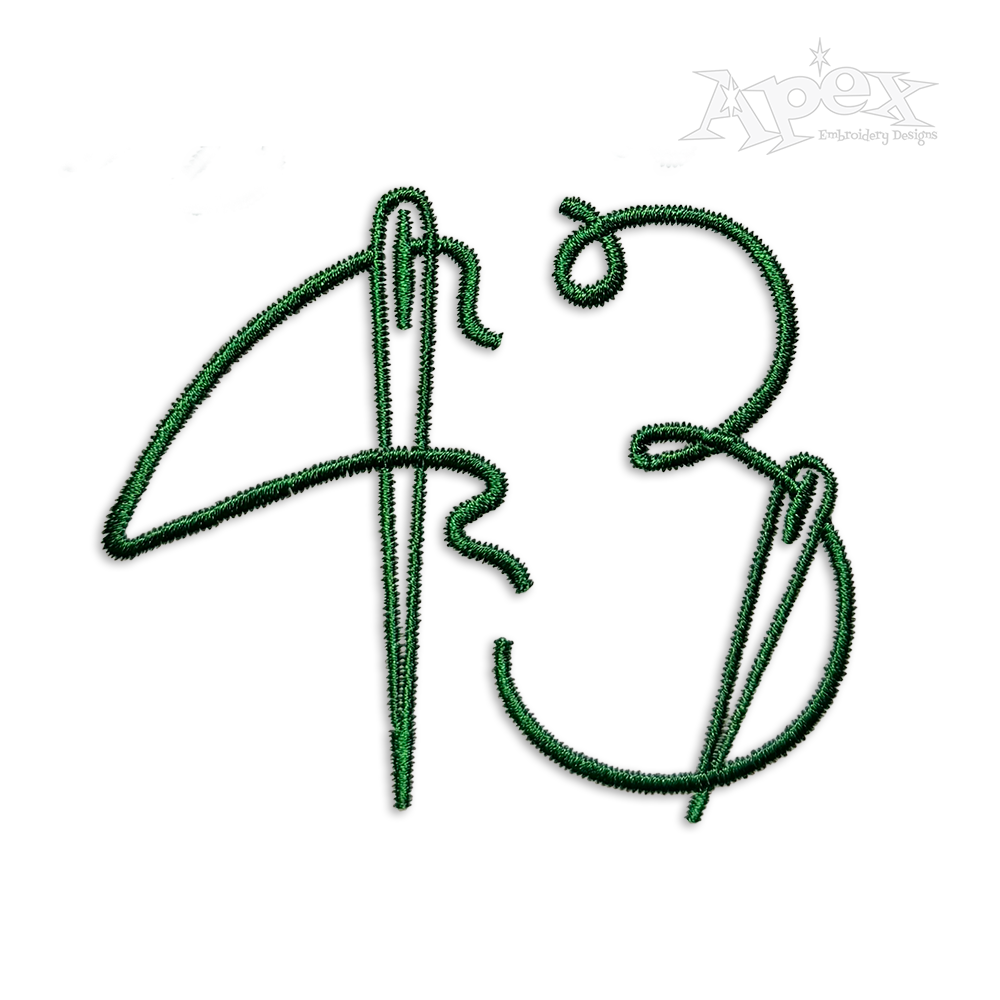
Needle Embroidery Font
Studio work table sparked vision: slender sewing needle piercing crisp linen while rich embroidery floss curves into fluid cursive script. Needle Embroidery Font honors maker heritage, transforming humble tailor tools into expressive typographic art. Polished steel needle forms strong vertical stem while trailing thread loops into graceful handwritten letters, bringing bespoke charm to heirloom gifts and maker studio essentials.
Needle Craft & Letterform Details
Digitizing focus centered on tactile contrast between rigid steel needle and supple, flowing embroidery thread. Needle shaft utilizes high-density column satin stitch with sharp tapered point and open eyelet opening. Thread flows seamlessly through needle eye, swooping across capital stems into organic cursive loops. Precision stitch angles follow every curve to maximize thread luster and light reflection. Custom underlay foundation locks fiber weave, preventing sink on textured linen, cotton canvas, or waffle weave textiles. Precise pull compensation preserves open needle eye shape and keeps delicate script loops legible under machine tension.